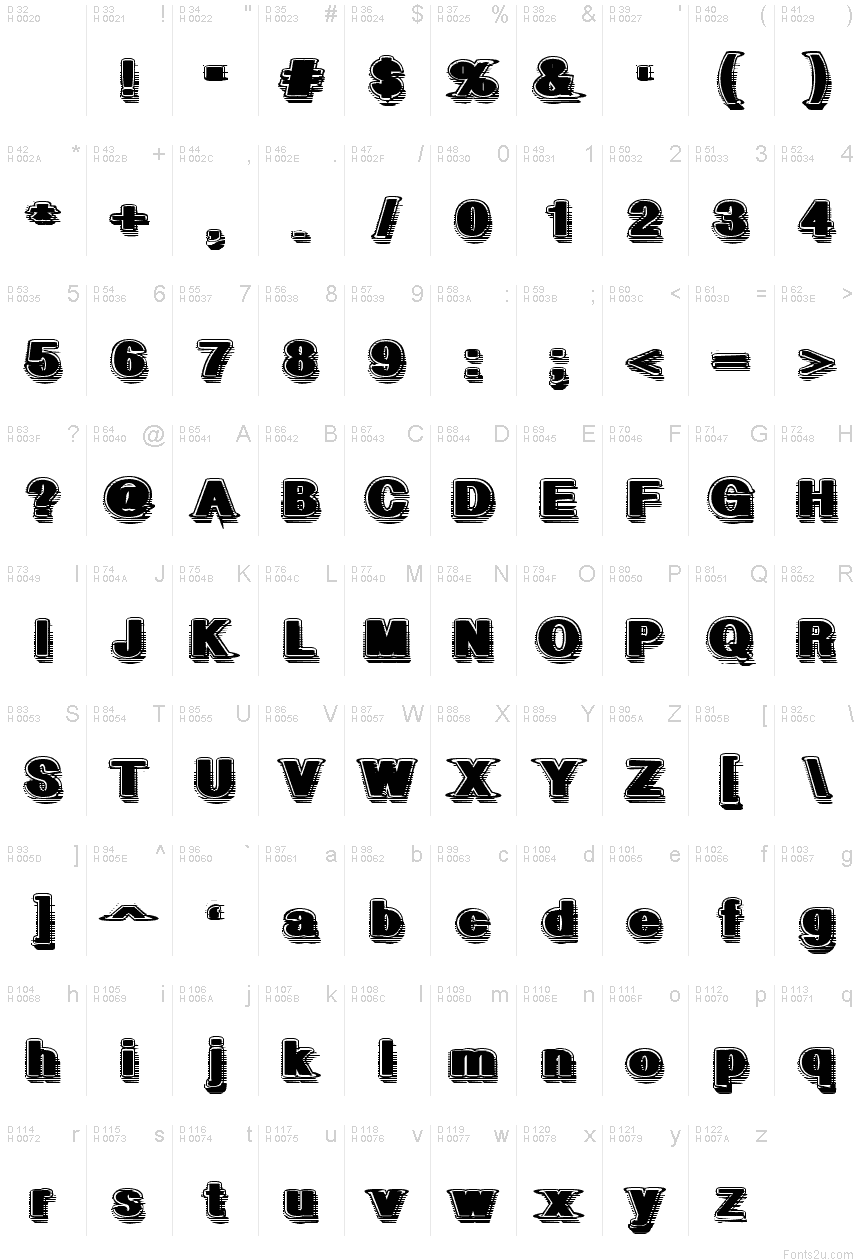
GeometricFog
Geometric Fog font by Paulo W is a free decorative display typeface that looks like bold bubble letters drifting through static. Chunky rounded forms are wrapped in thick outlines, then sliced by tight horizontal stripes that create a hazy, vibrating texture-almost like neon signage seen through mist. The result feels playful and a bit surreal, with letters that seem to hover off the page.
Using Geometric Fog, short words and punchy phrases snap into focus, making it a natural fit for posters, gig flyers, carnival or arcade branding, retro packaging, album covers, and bold social graphics. This free font loves large sizes where its striping can really buzz; pair it with a clean geometric sans for body copy to keep the visuals loud but legible.